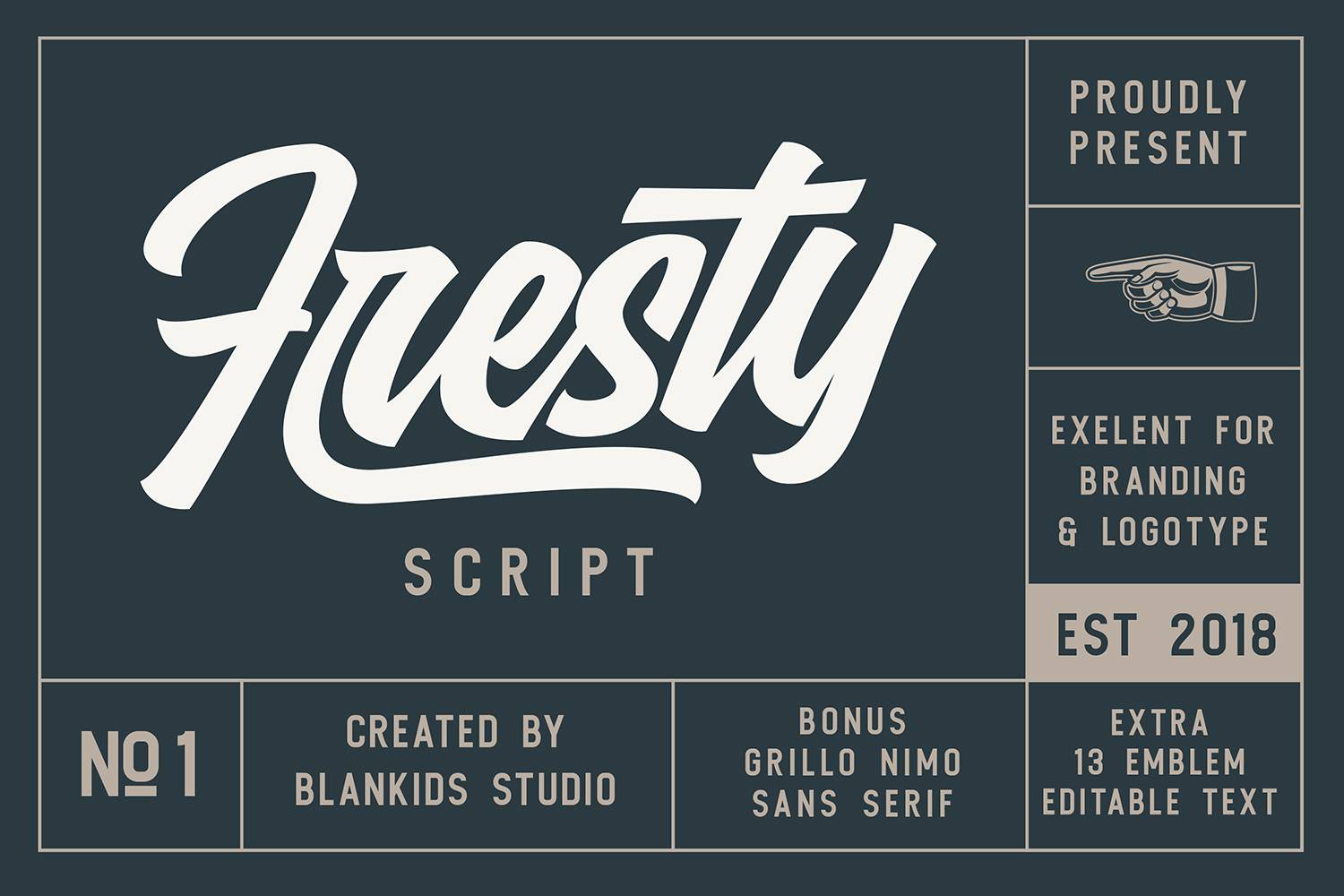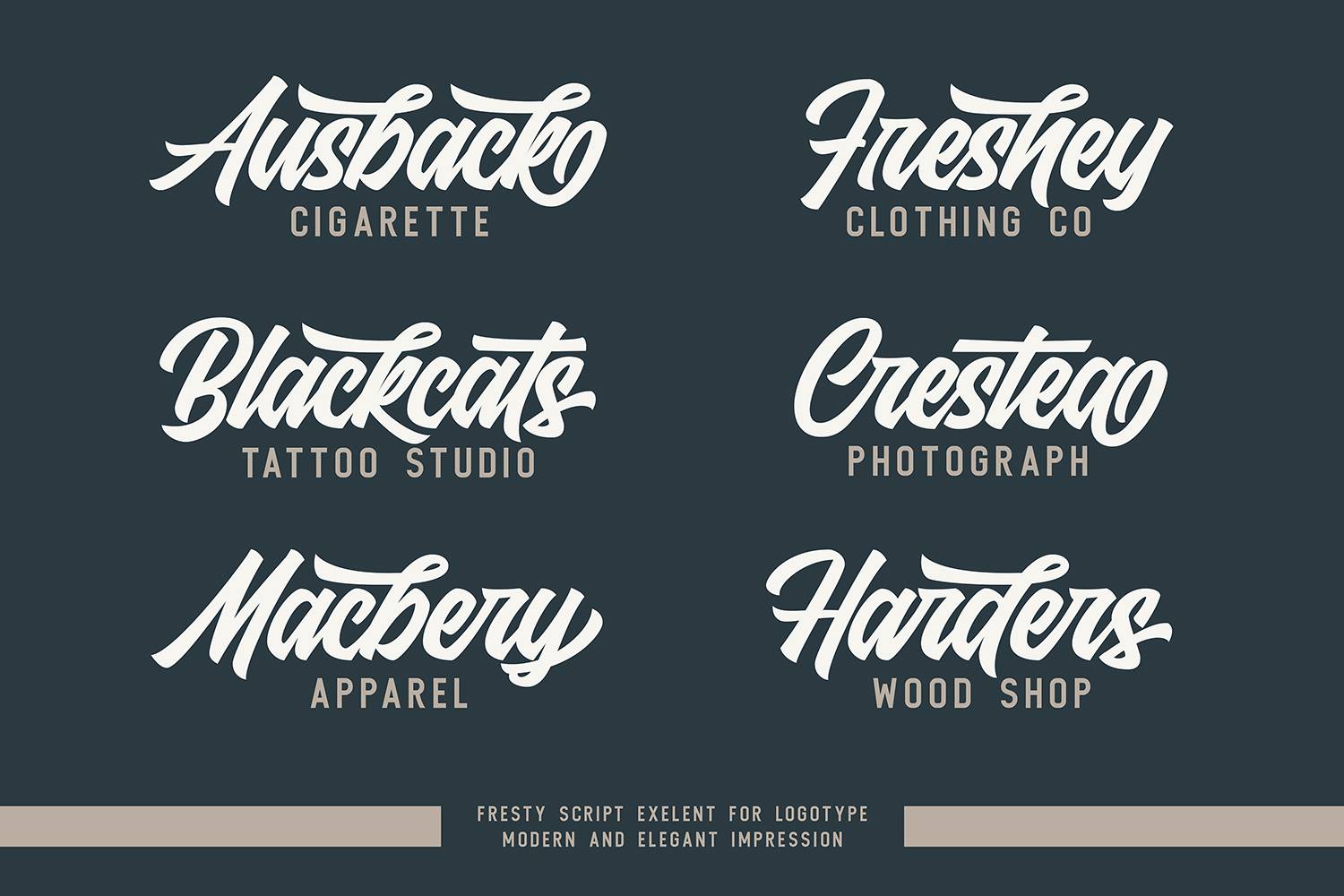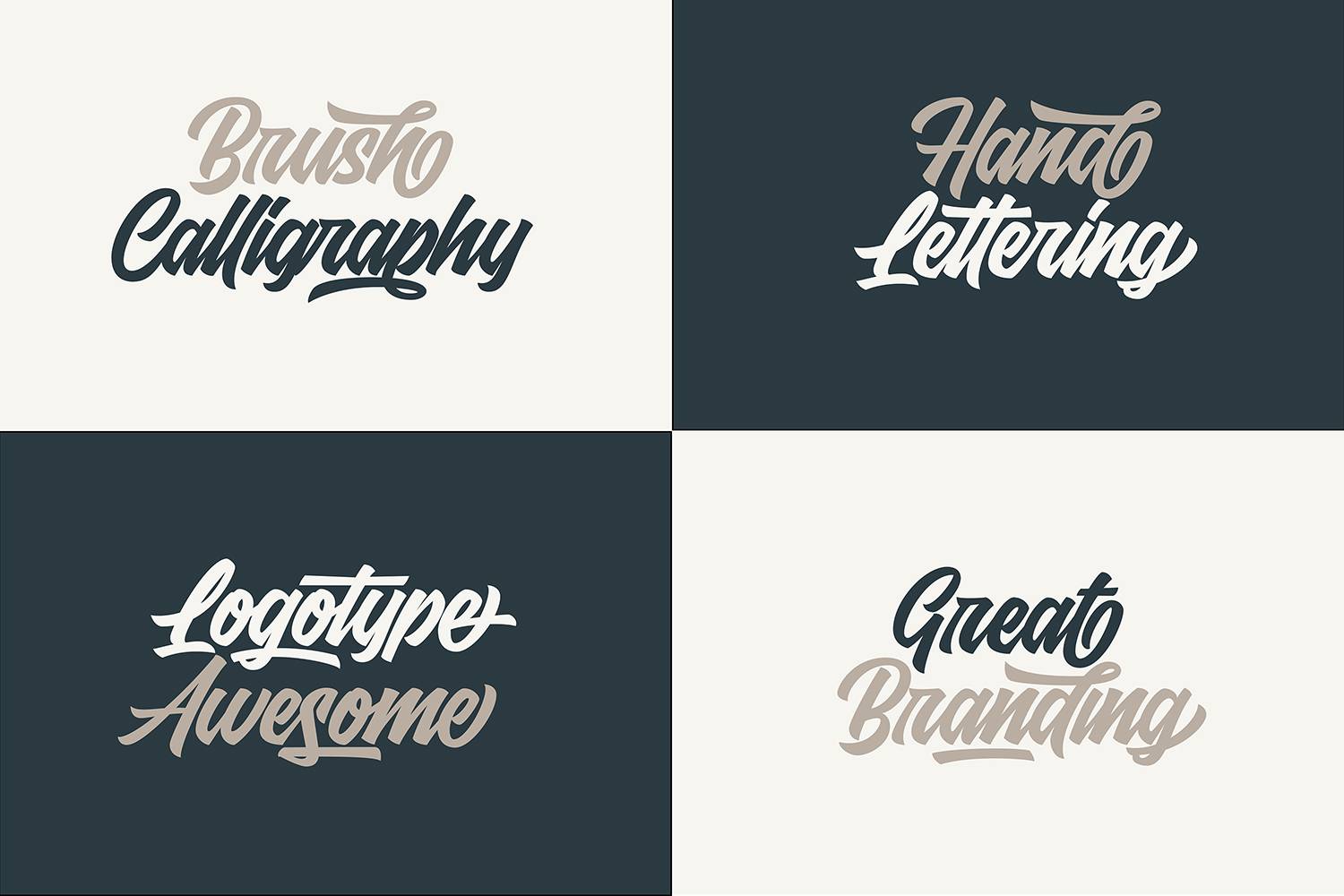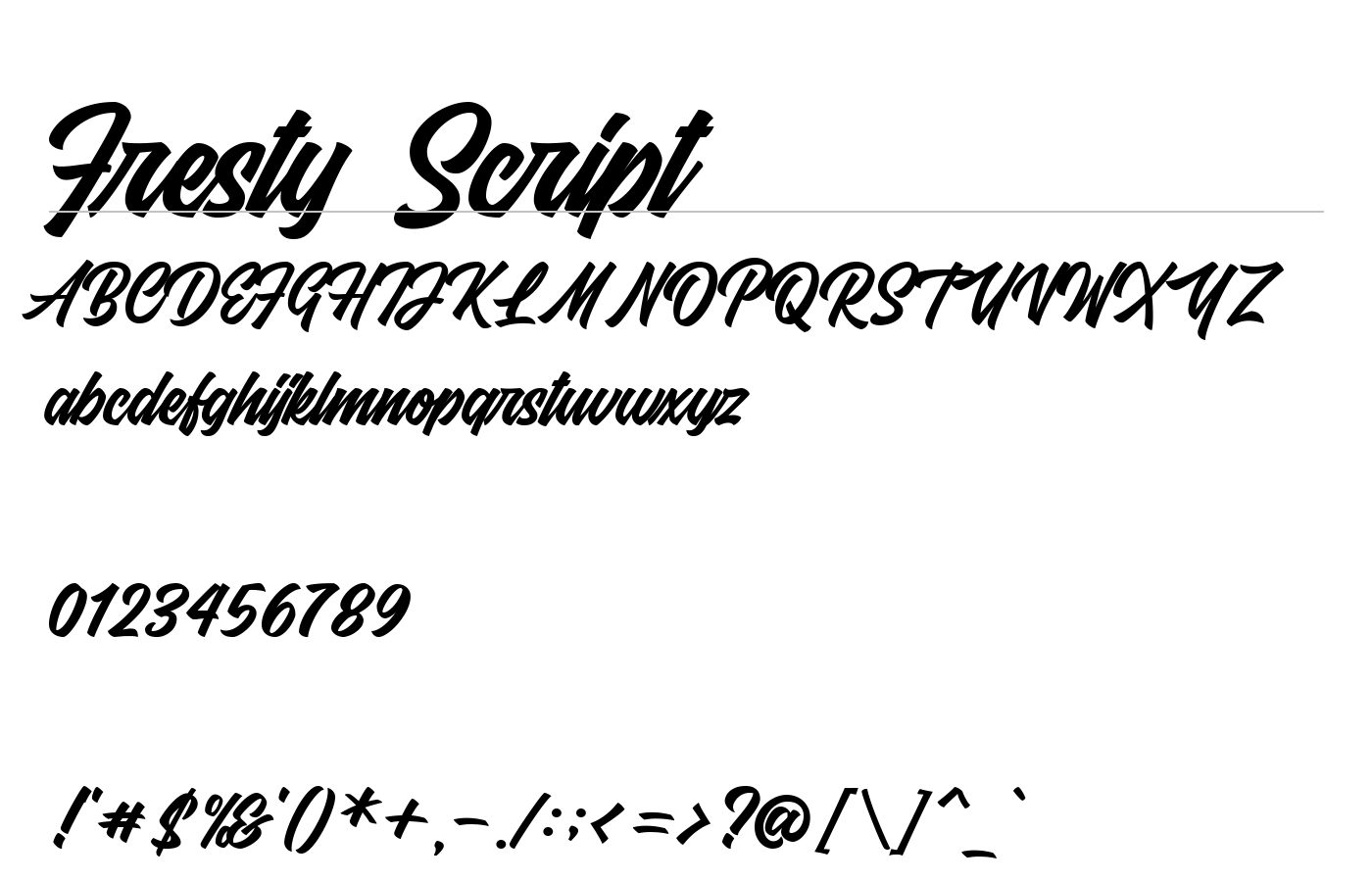
Fresty Script is a bold, expressive script font with smooth, flowing strokes and a slightly italicized slant, giving it a dynamic and energetic feel. Its thick and consistent weight combined with elegant, connected letterforms make it ideal for creating eye-catching headlines, logos, and branding with a modern yet playful personality. This font works well in designs that need a confident and stylish touch, from packaging to editorial layouts.
Fresty Scipt Font
About Fresty Scipt Font
| Font family | Fresty Scipt Font |